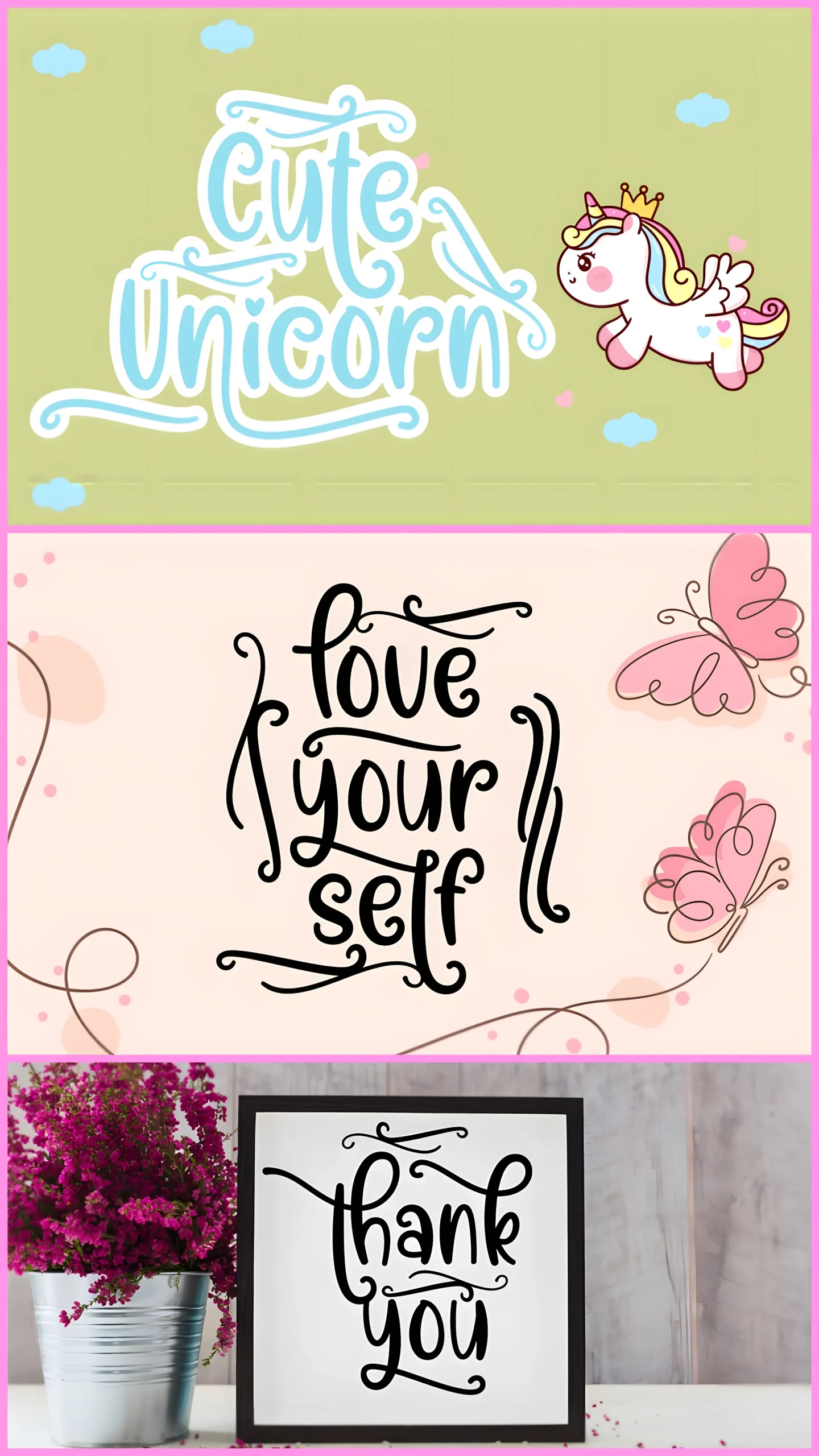
Sunday Easter is a cool script font that adds a light, warm, and creative touch to today's designs. Its handwriting style and fun flow give off a friendly, real vibe. It's got both style and is easy to read, so it works great for short, catchy lines and longer text.
For blogs, Sunday Easter is awesome for titles, inspiring quotes, special text spots, and images that tell a story. It's a great fit for articles about spring, seasonal fun, lifestyle stuff, DIY ideas, and cool lettering. Mix it with simple sans-serif fonts, and it makes things pop without being too much, keeping readers interested and the page organized.
What's cool about Sunday Easter? It’s PUA encoded. This means you can easily get to cool glyphs and swashes without needing fancy software. It's user-friendly for designers, bloggers, and newbies wanting to play with type while keeping things simple. This font looks good in online art, print designs, social media images, and blog pictures.